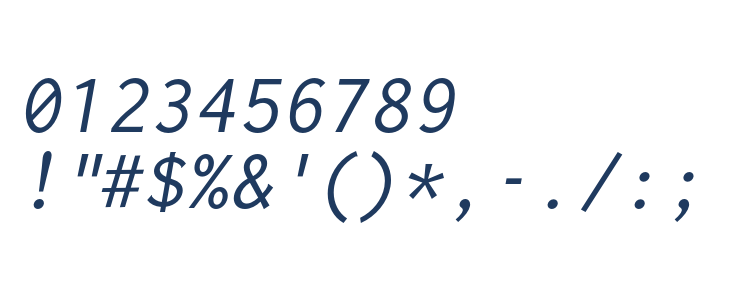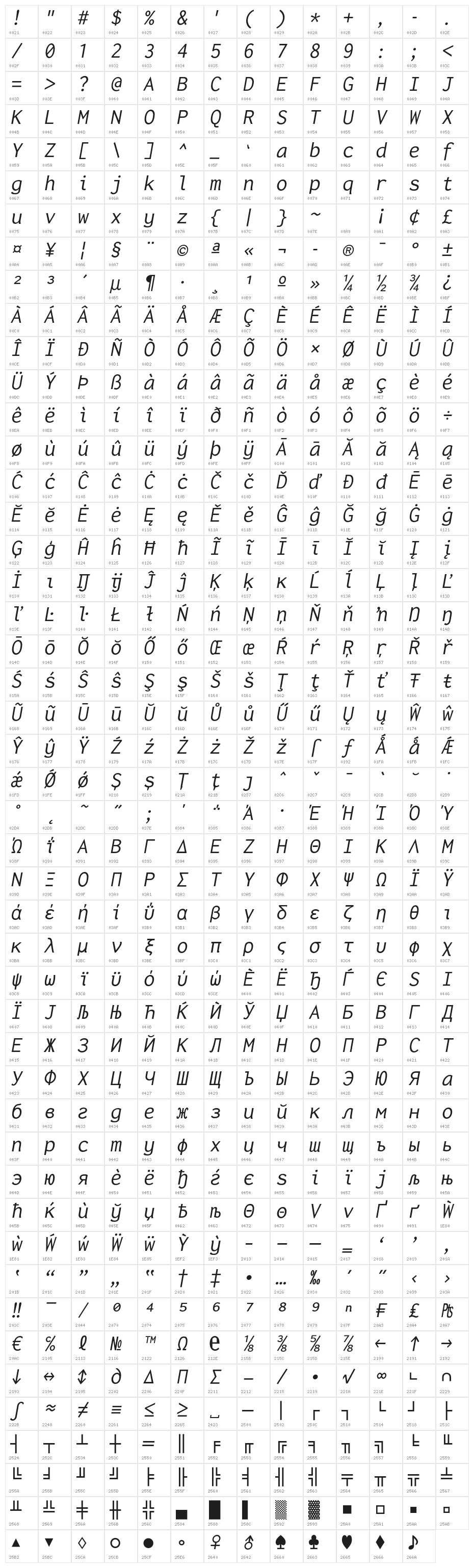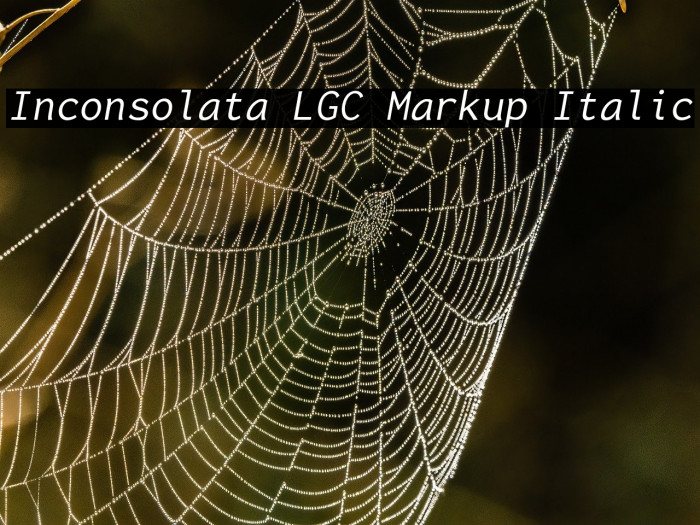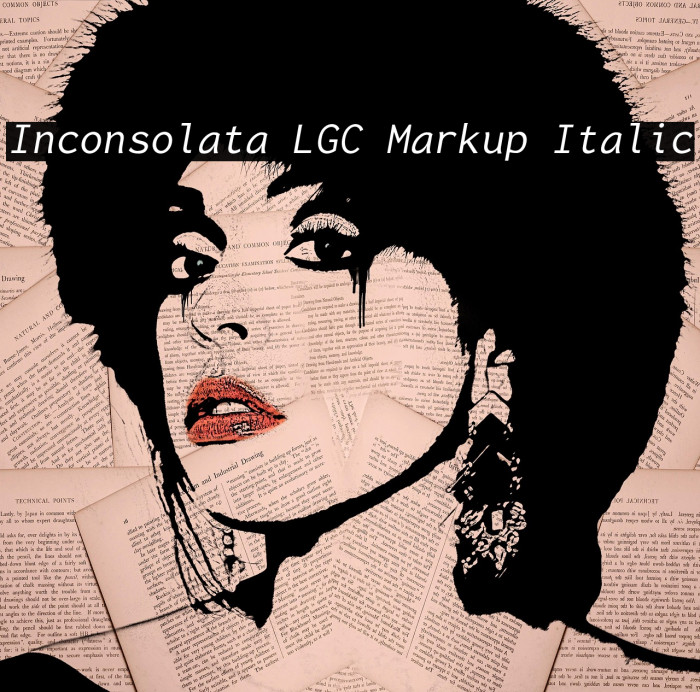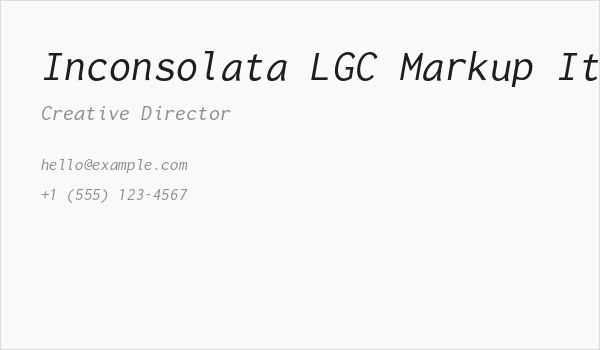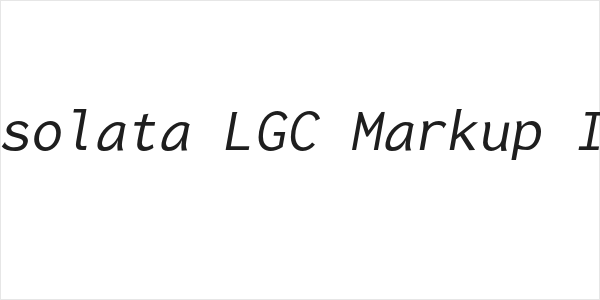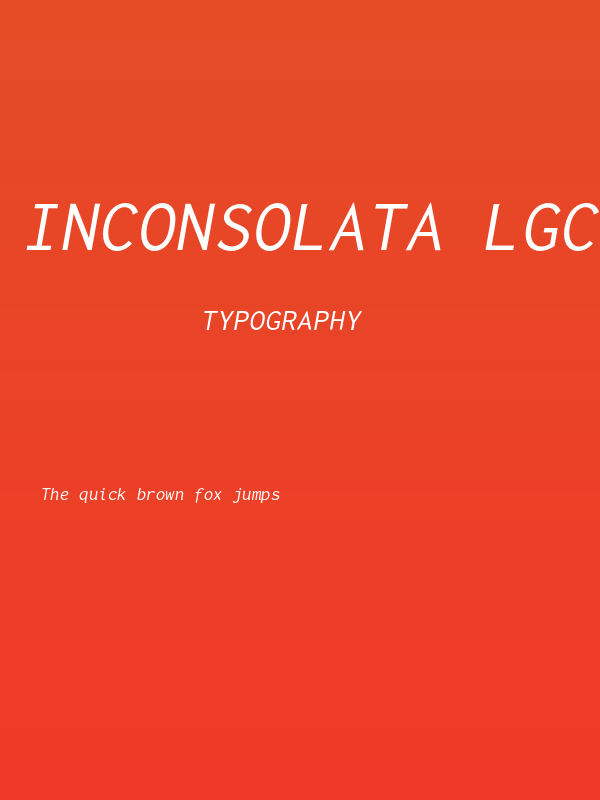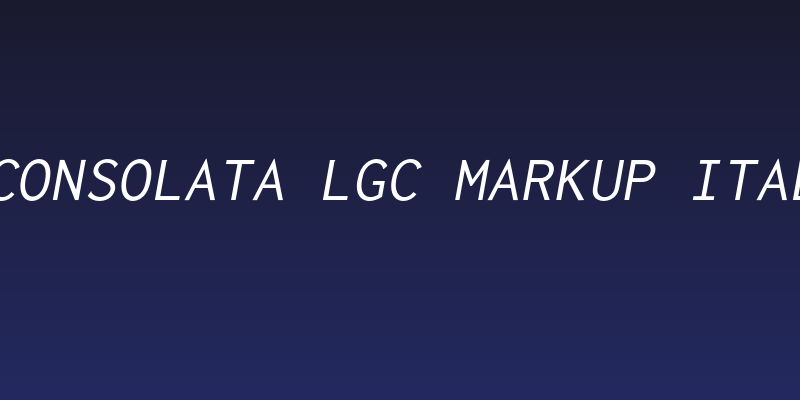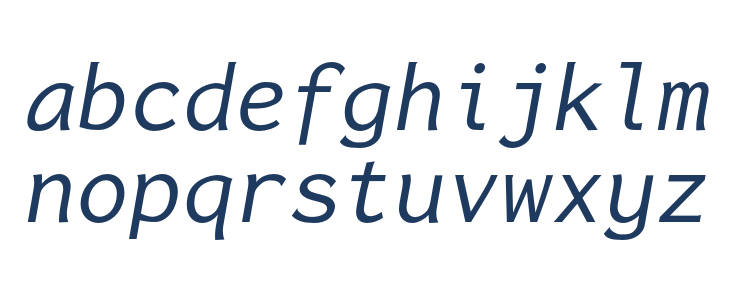
Inconsolata LGC Markup Italic Font
Inconsolata LGC Markup Italic Description
This font exhibits a clean, monospaced design with a slight italic slant, providing a modern and technical appearance. The characters are evenly spaced, ensuring readability and consistency across different sizes. The strokes are uniform, with medium contrast, giving it a balanced look. Its simplicity and clarity make it suitable for coding environments and technical documentation. The font's style is straightforward yet elegant, making it versatile for various applications. The italic nature adds a touch of dynamism while maintaining the structured feel of a monospaced typeface.
| Use Case | Coding, Technical documentation |
| Proposed Projects | Ideal for coding, technical documentation, and any project requiring clear, structured text presentation. |